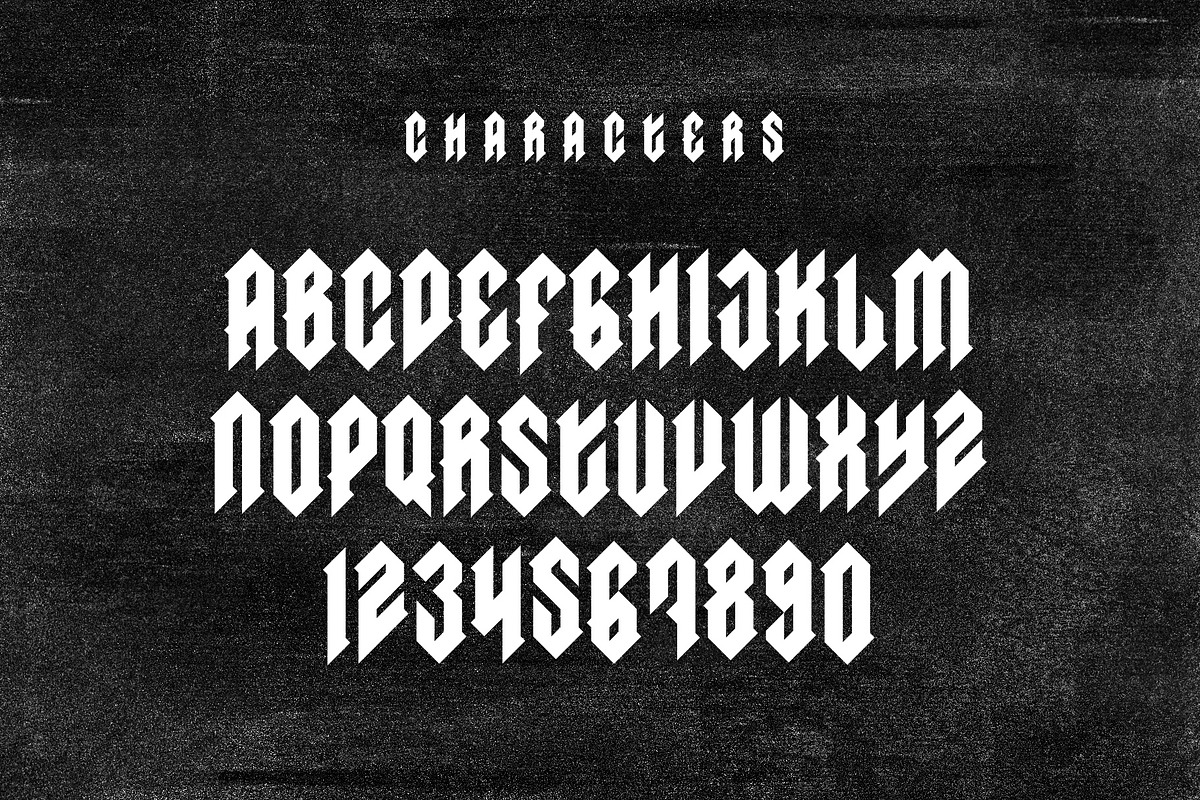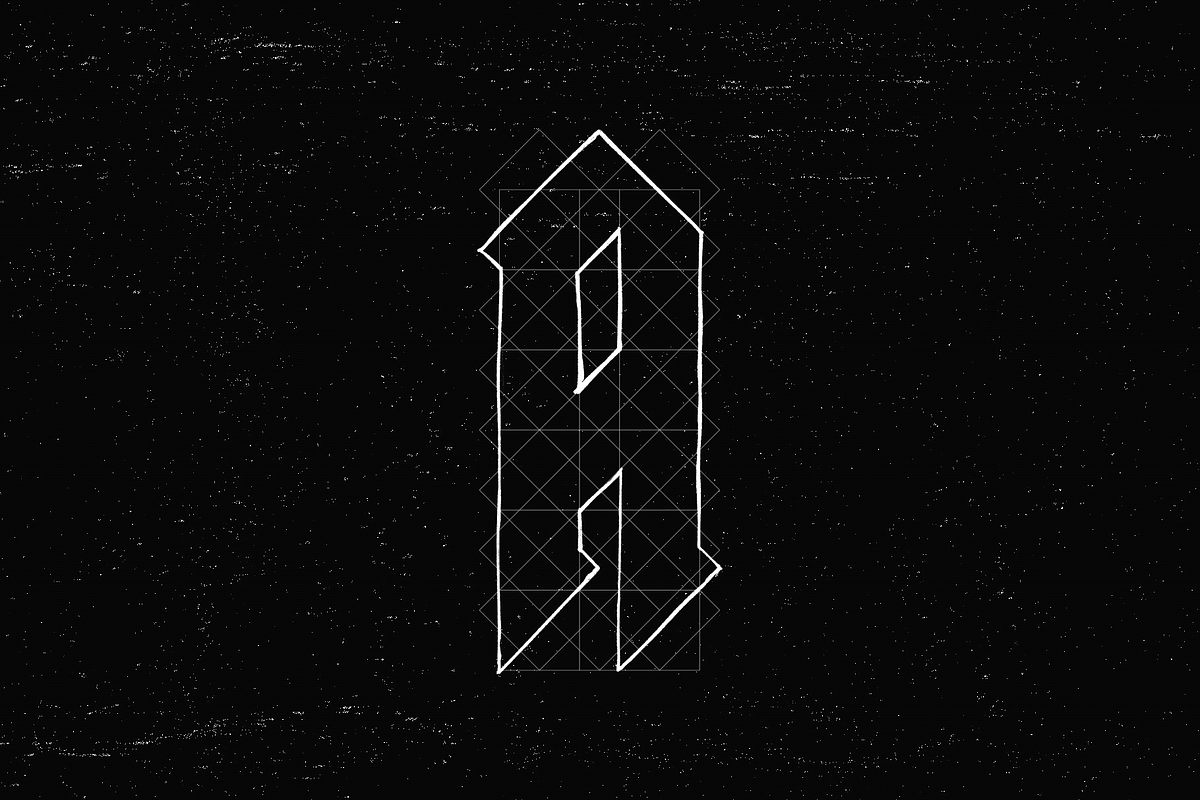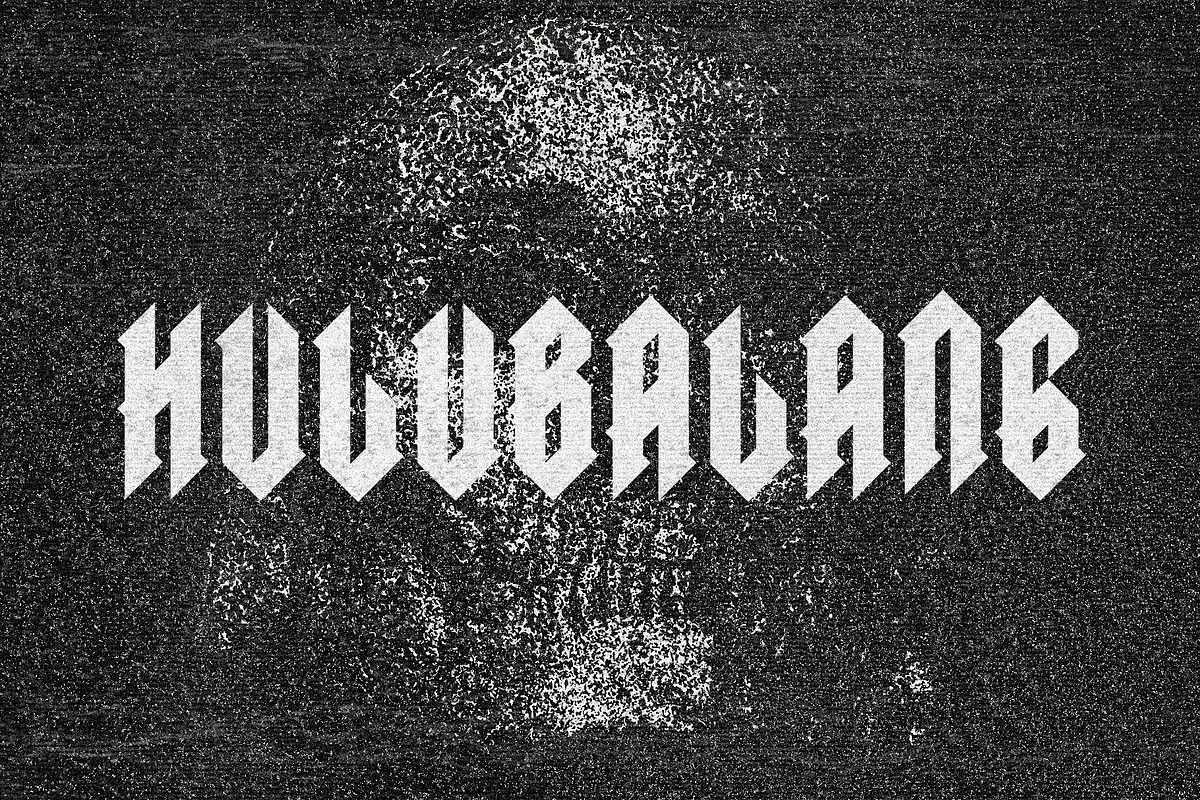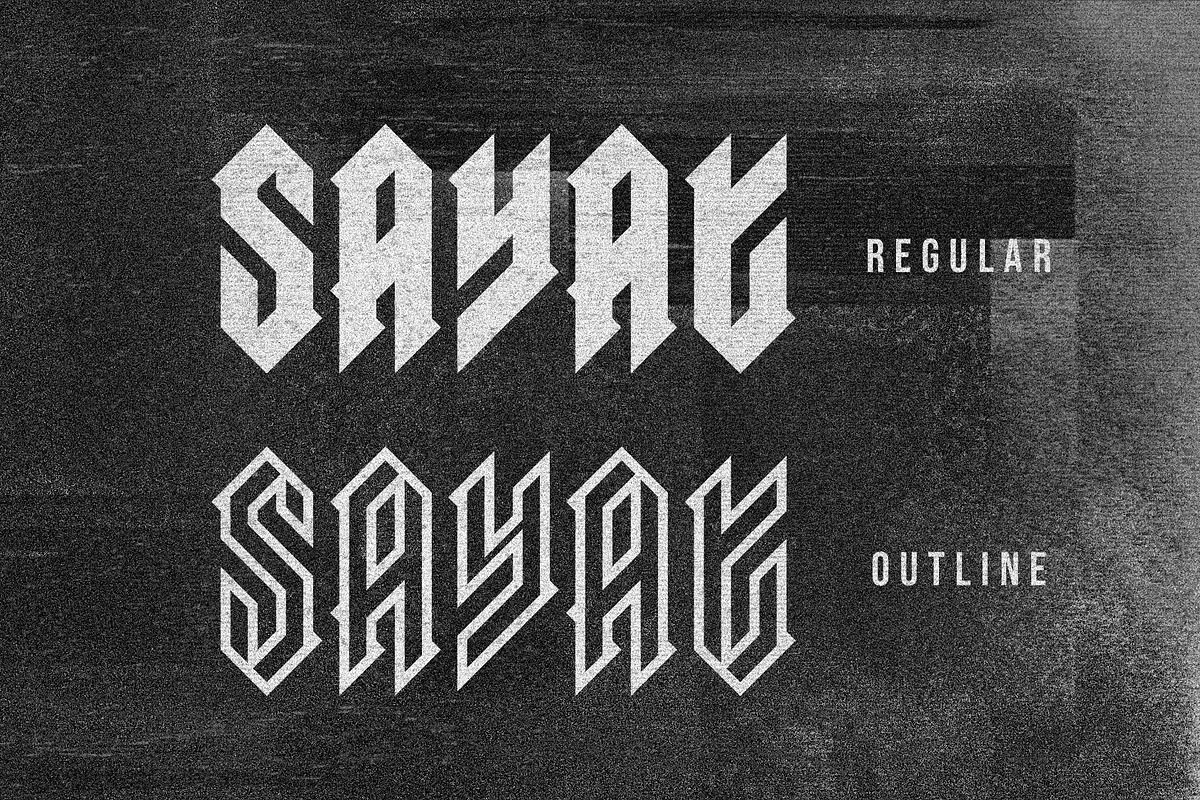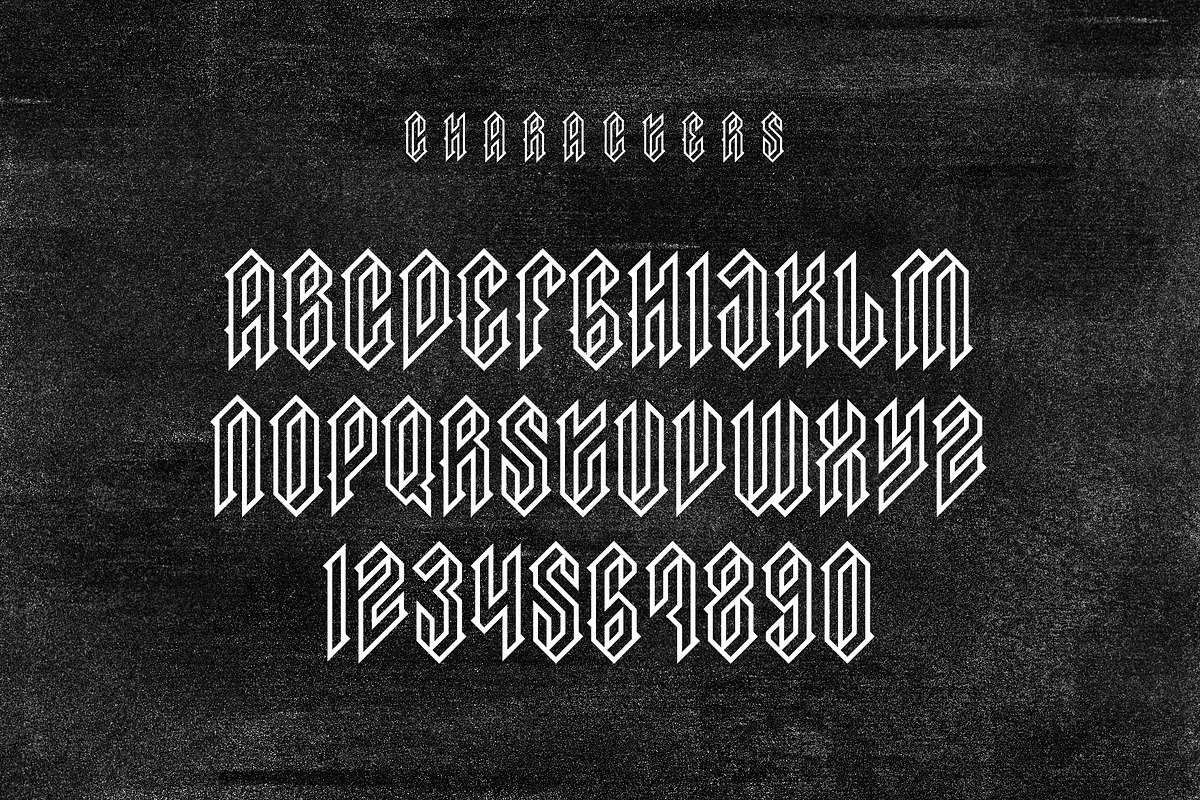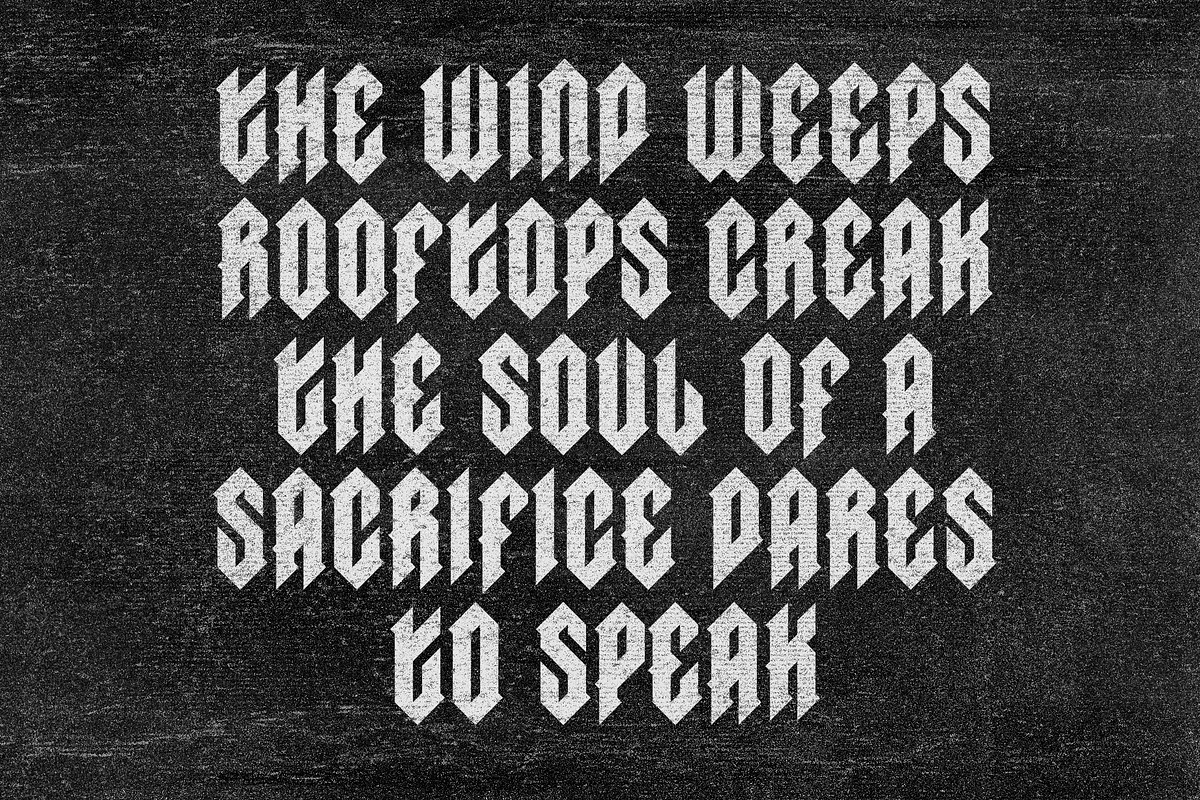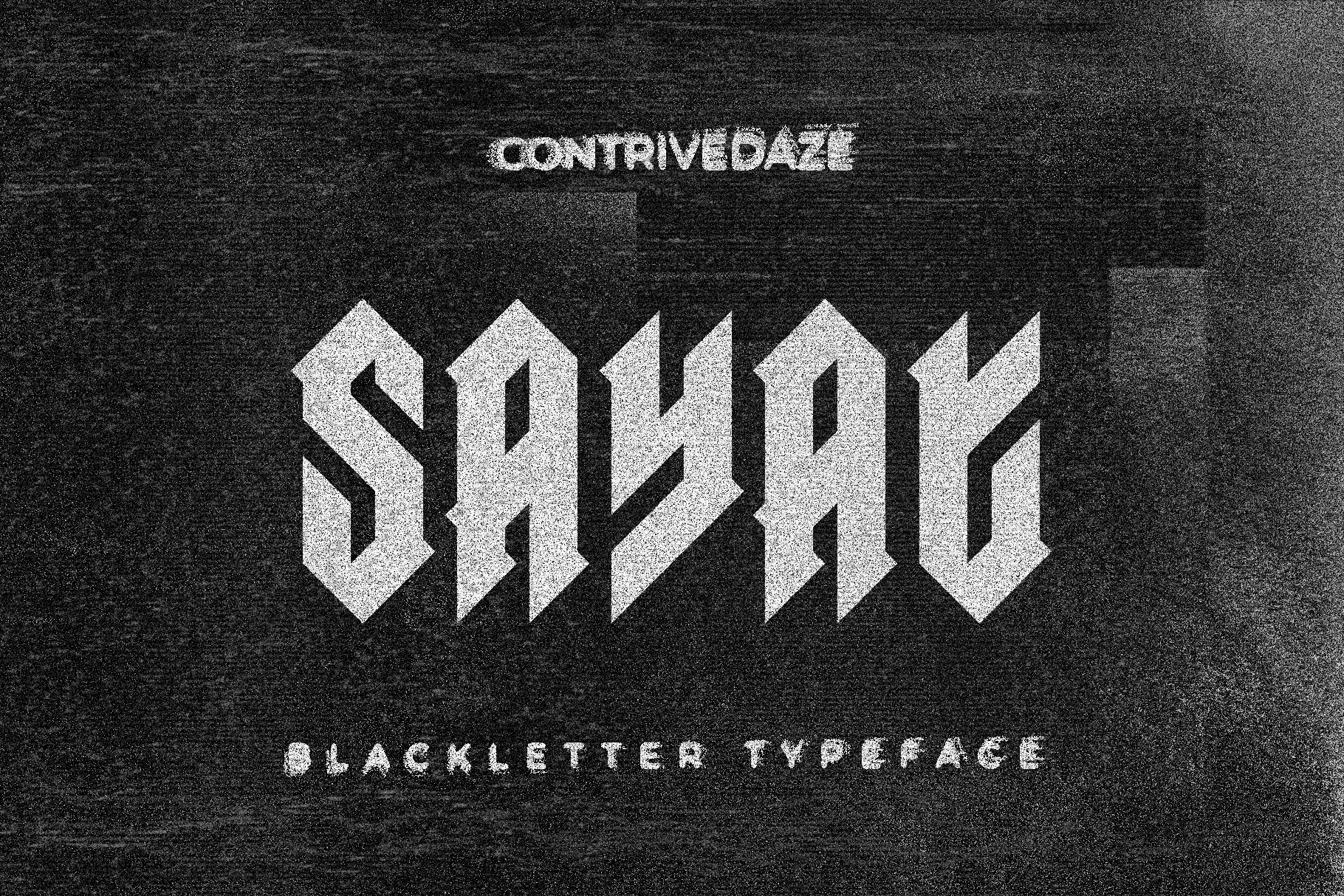
SAYAT BOLD BLACKLETTER TYPEFACE
Unleash the raw spirit of rebellion with Sayat, a bold blackletter typeface forged in sharp angles and heavy strokes. Inspired by underground metal, hardcore punk, and the darker corners of visual culture, Sayat is made for statement-making artwork—loud posters, brutal album covers, and gritty apparel designs.
This font isn't just for show—it speaks in shadows and echoes in distortion. With its razor-cut edges and rhythmic energy, Sayat delivers presence, impact, and attitude.